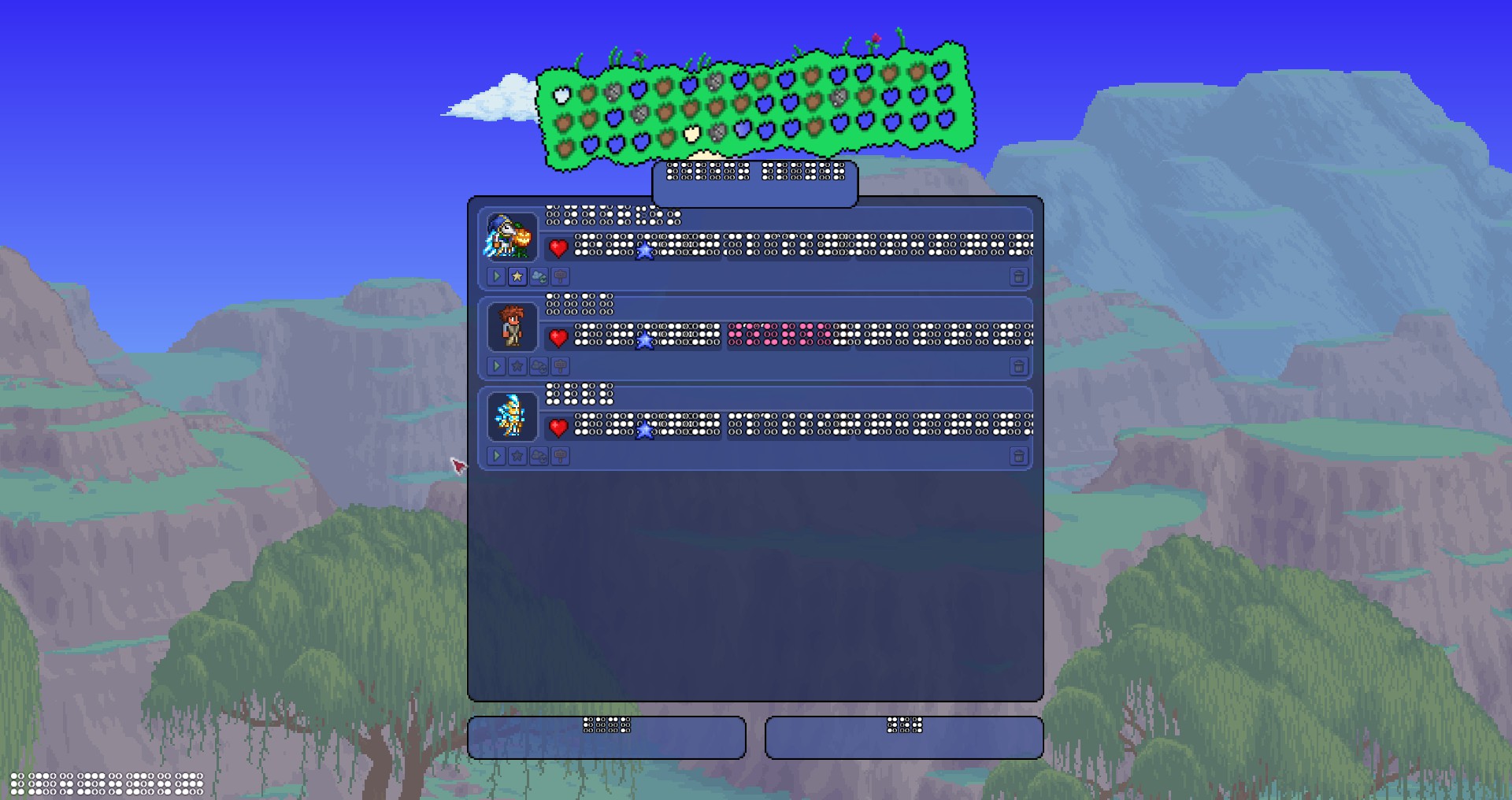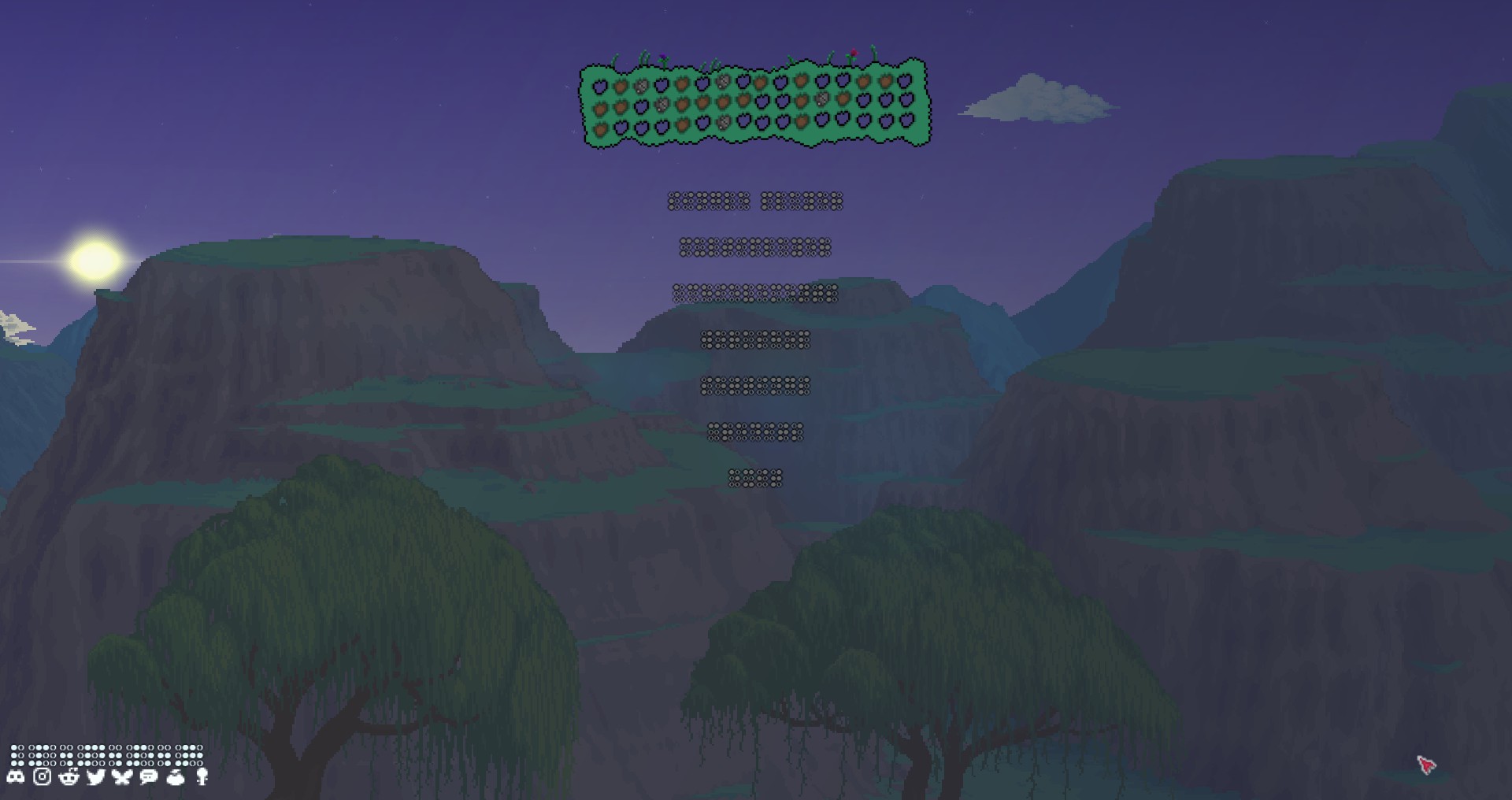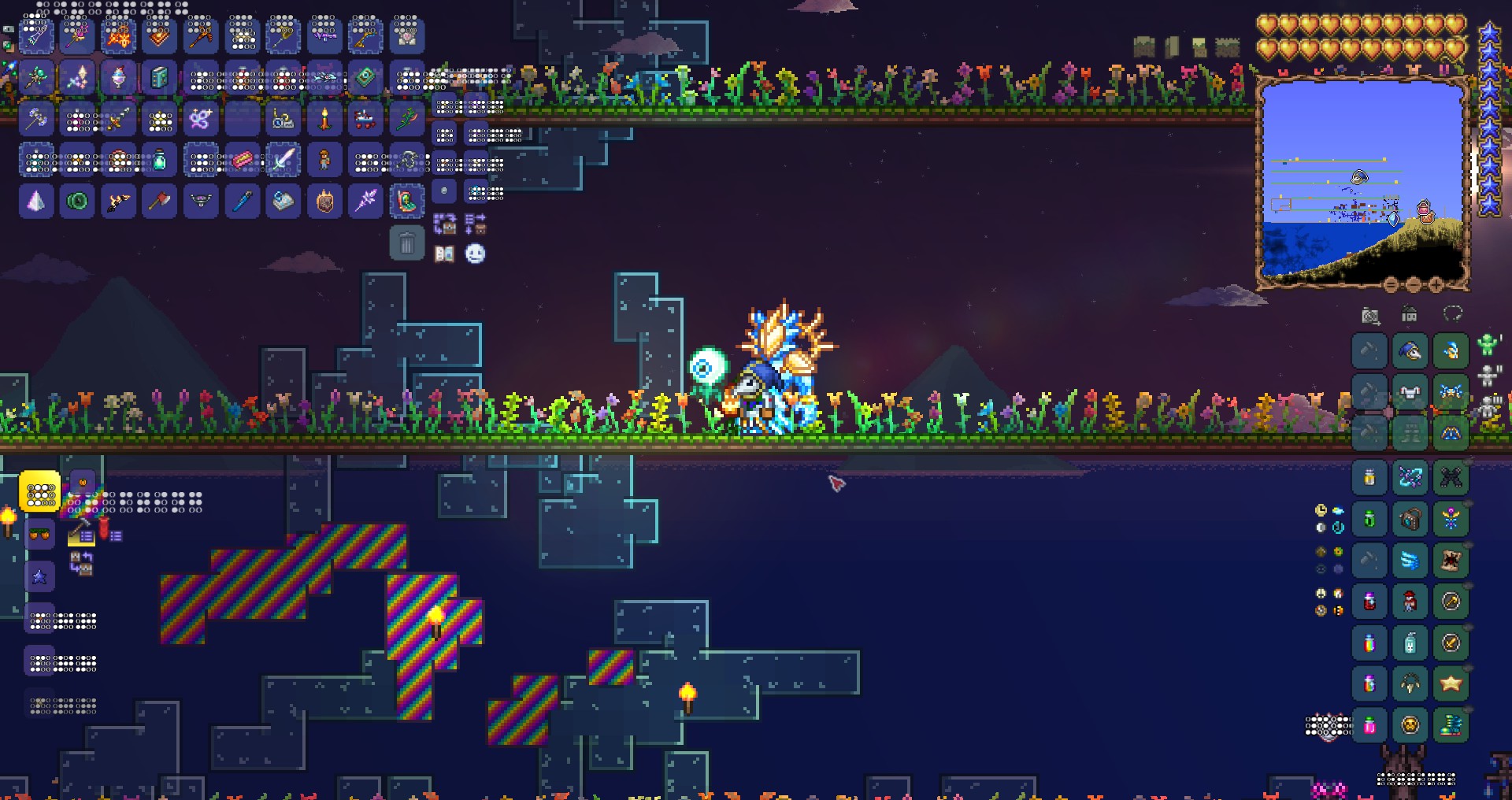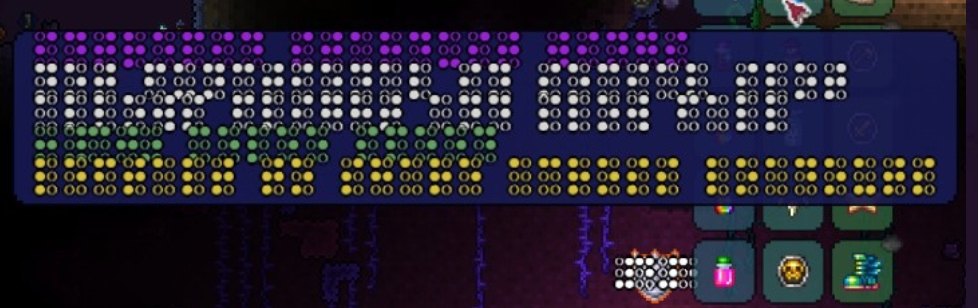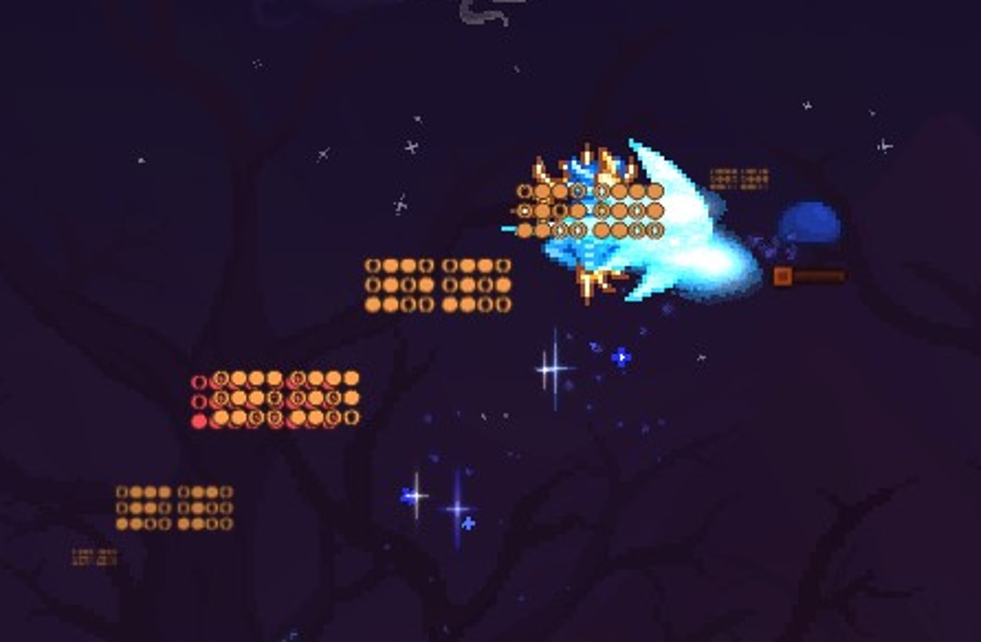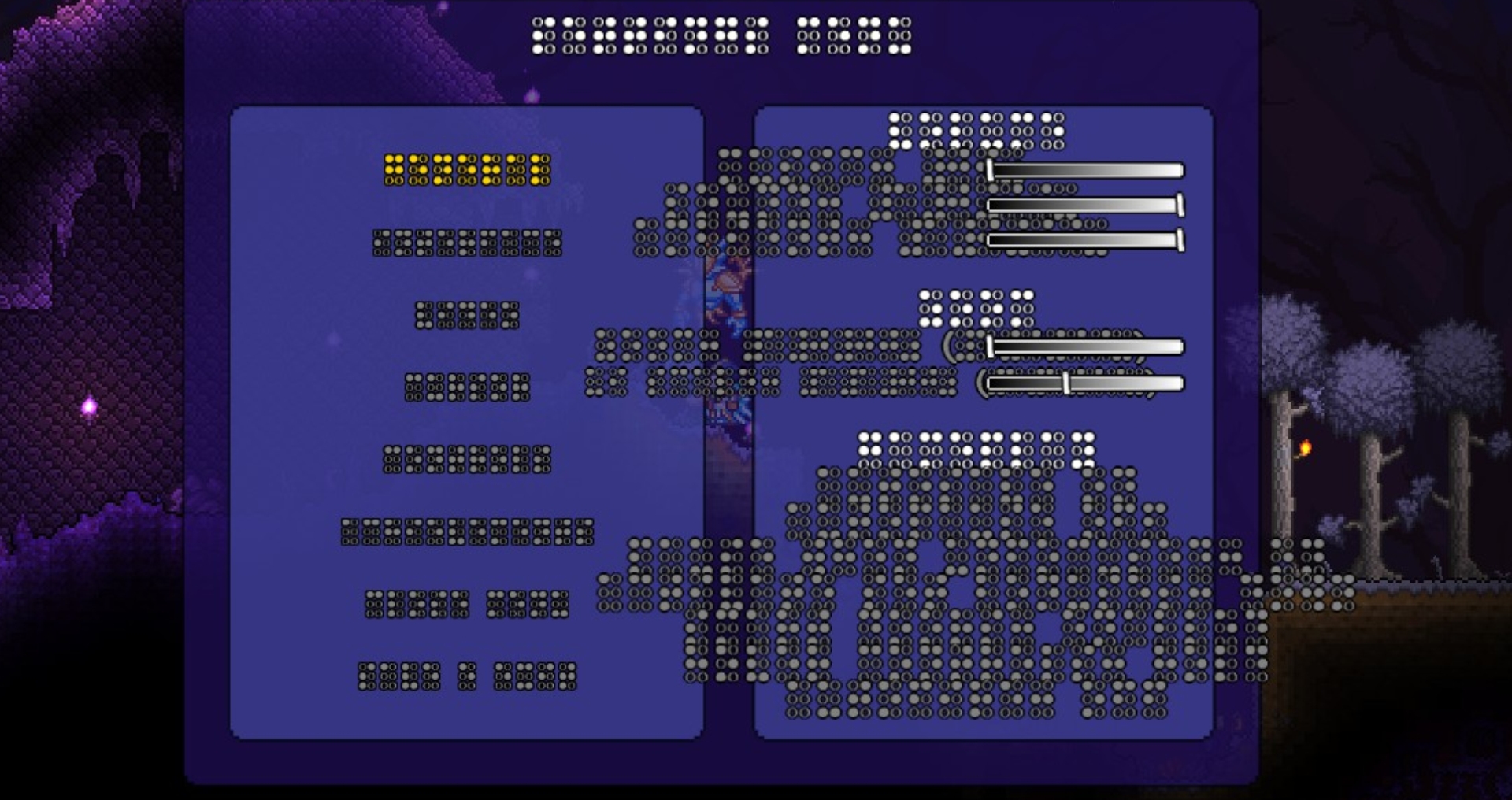
Braille Font – ⠃⠗⠁⠊⠇⠇ ⠑ ⠋⠕⠝⠞
Braille Font Mod for Terraria: Enhancing Accessibility
Terraria, a game celebrated for its expansive worlds and deep crafting systems, has always strived for broad player appeal. Now, the Braille Font mod significantly enhances accessibility, opening up the rich text-based content of Terraria to visually impaired players.
Bringing Text to Life
This innovative mod introduces Braille characters into the game’s interface. Instead of relying on visual cues alone, players can now engage with item descriptions, dialogue, and in-game text rendered in a format that can be interpreted by those who are blind or have low vision. This fundamental change ensures that the narrative, crafting recipes, and world lore of Terraria are no longer out of reach for a segment of the player base.
Key Features
- Full Braille integration for all in-game text.
- Improved accessibility for visually impaired players.
- Preserves the original Terraria experience while adding a vital layer of inclusivity.
- Seamless integration with existing game elements.
A More Inclusive Terraria
The development of mods like Braille Font showcases the dedication of the Terraria community to making the game enjoyable for everyone. By providing a tactile and readable text alternative, this mod empowers players to fully immerse themselves in the adventure, discover every secret, and master every crafting challenge, just like any other player. It’s a testament to how thoughtful modifications can broaden the horizons of a beloved game, making it a more welcoming and accessible experience for all adventurers.